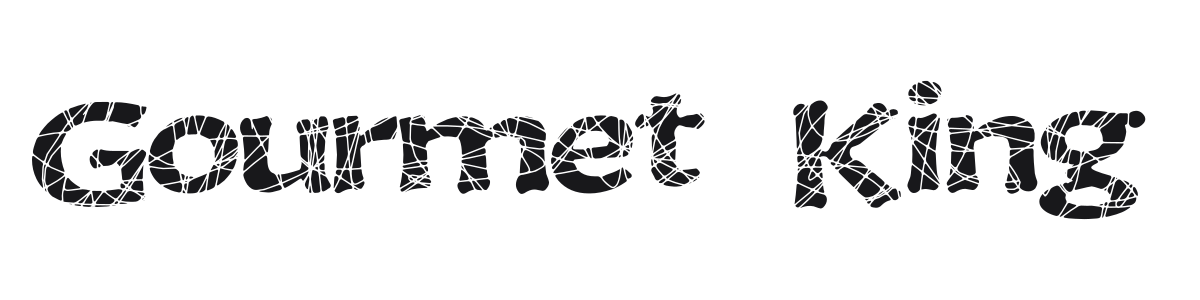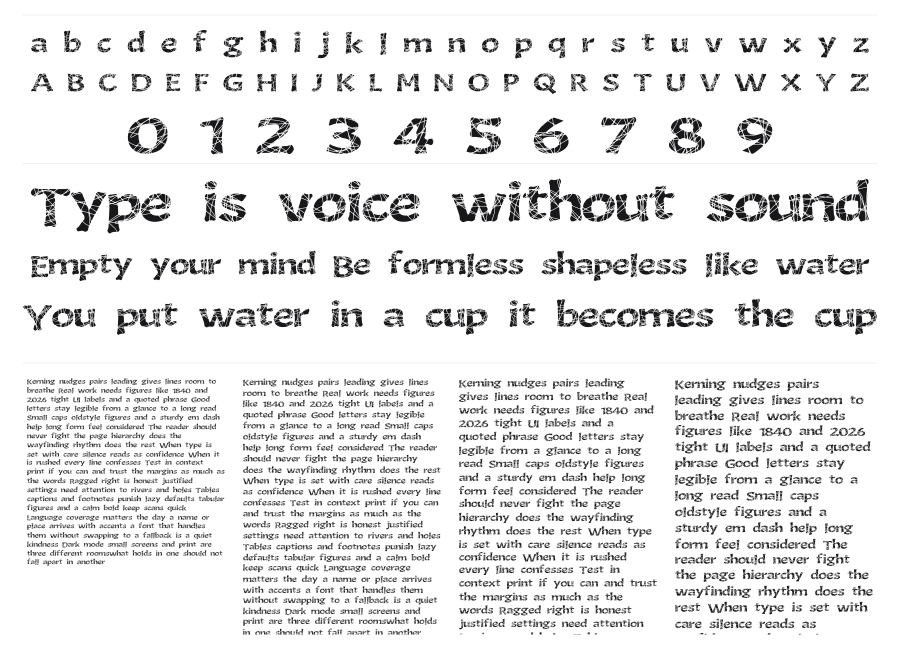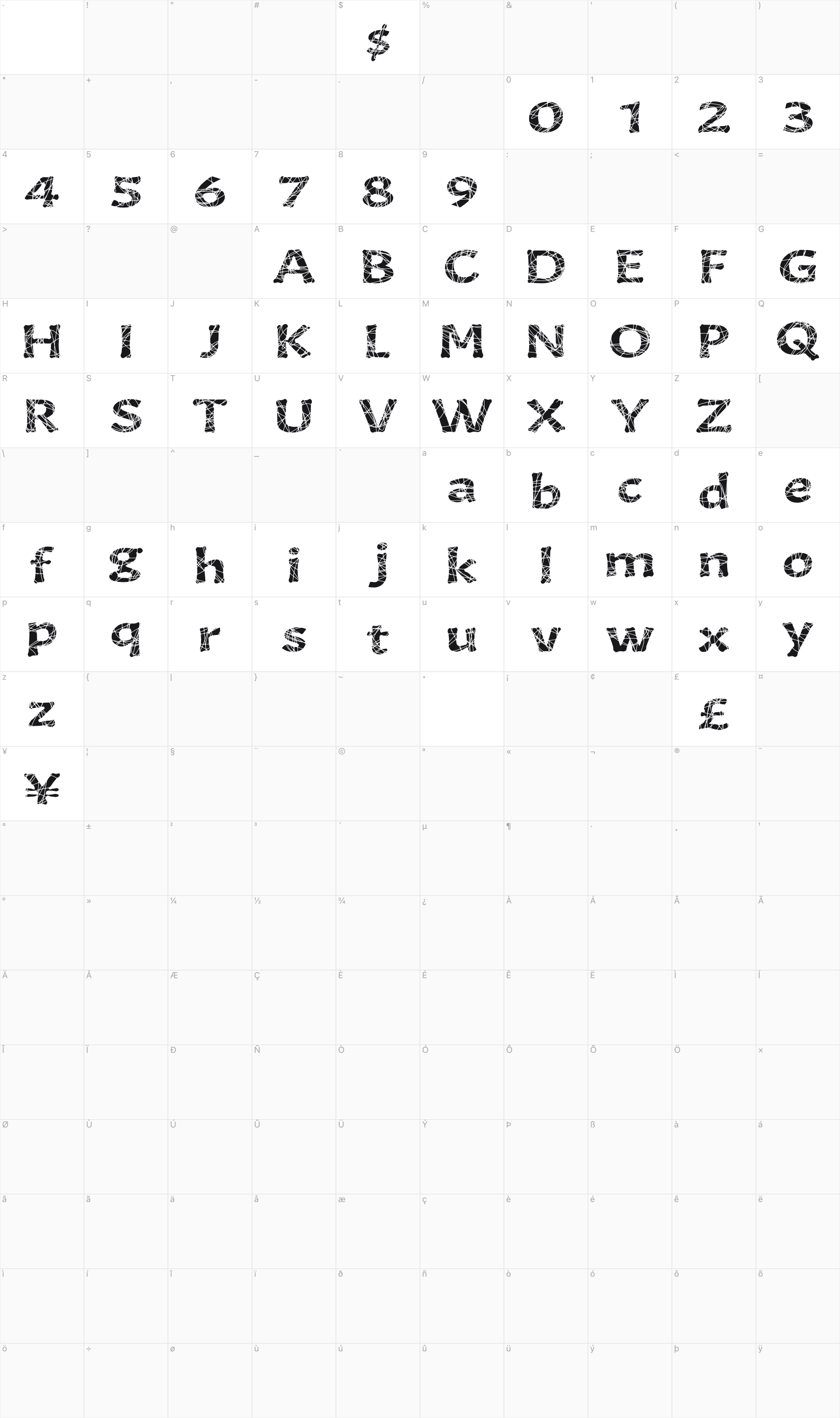
Gourmet King
Gourmet King is a bold rounded sans wrapped in a pervasive cracked and splintered texture, as if the letters were cast from fractured ceramic or shattered stone. The tension between chunky, approachable letterforms and sharp, jagged fracture lines gives it a raw, high-energy character. It works at large sizes for posters, labels, and any headline that needs attitude.